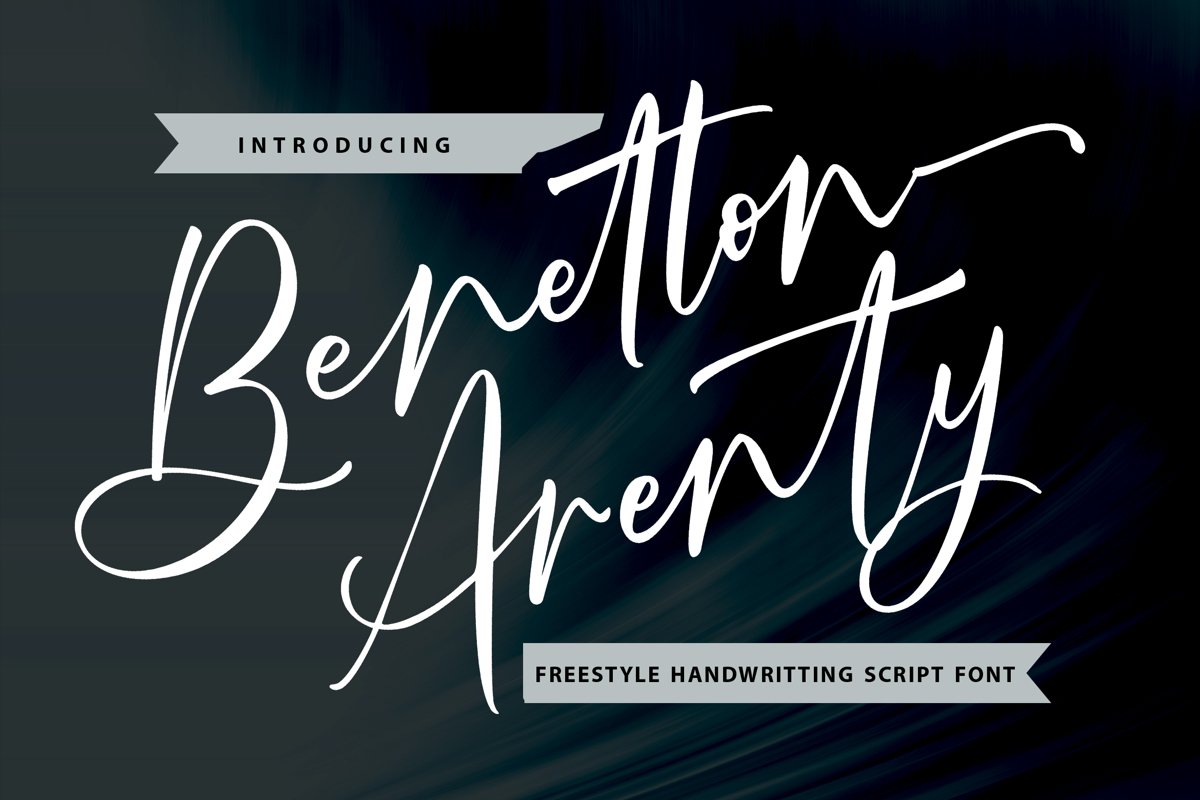
Benetton Arenty | Freestyle Handwritting Script Font
Benetton Arenty
**Benetton Arenty | Freestyle Handwritting Script Font** with a calligraphy style, So beautiful on invitation like greeting cards, branding materials, business cards, quotes, posters, and more!
* Tons of glyphs
* Alternates and Ligatures
* Fonts include **Multilingual Support**